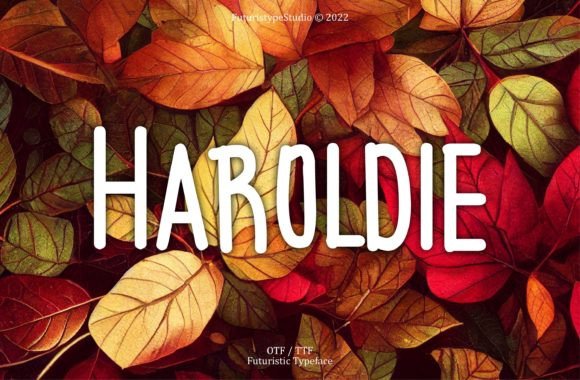
Haroldie Font for Memorable Branding and Display Projects
As a creative consultant who's helped dozens of small businesses elevate their brand presence, I can tell you: the right font doesn’t just look good—it makes your business feel complete. Recently, I was working with a local boutique owner named Maria. She had a beautiful line of handmade jewelry but struggled to make her packaging and social media stand out in a saturated market. That’s when I discovered Haroldie, a cool and trendy-looking display font that could bring her brand personality to life.
Haroldie for Boutique Packaging and Brand Tags
Haroldie is a display font with bold, confident curves and a modern edge that feels both playful and professional. It wasn’t long before I saw its potential for small labels and product tags. Maria used it on her gift boxes and hang tags, and the response from customers was immediate—people started asking if she’d hired a designer.
For boutique owners, especially those in fashion or lifestyle niches, Haroldie adds a sense of exclusivity and creativity. Its unique character helps products stand out on shelves and in online listings. The key here is using it sparingly; while it shines in short bursts like brand names or taglines, overusing it can distract from readability.
How to Use Haroldie on Product Labels Without Overdoing It
- Use it as the headline on product labels or packaging
- Pair it with a clean sans serif font for ingredient lists or descriptions
- Ensure legibility by keeping text size large enough for printed materials
Haroldie in Logo Design and Merchandise Banners
One of the most impactful ways to use Haroldie is in logo design. A few months ago, I worked with a skincare brand that wanted to rebrand their product line. Their previous logo felt generic, and they needed something fresh. After testing several Fonts, Haroldie stood out for its ability to convey a sense of style and modernity without being too flashy.
The logo now features Haroldie in a stylized form, paired with a minimalist layout. This gives the brand a premium feel and makes their products instantly recognizable at a glance. When used in logos, Haroldie works best when it's simplified—removing unnecessary alternates or ligatures can help maintain clarity and professionalism.
On merchandise banners and promotional posters, Haroldie really comes into its own. Its visual appeal catches attention quickly, which is essential for retail environments and digital storefronts where first impressions matter most.
Design Tips for Using Haroldie in Logos and Posters
- Test different weights (if available) to find the boldest version that still looks balanced
- Limit the number of characters in headlines to keep them legible at a distance
- Use high-contrast colors against white or dark backgrounds to highlight the font’s style
Haroldie for Social Media Graphics and Online Shop Templates
With more customers shopping online than ever before, having strong visual assets is critical. I recently helped a bakery refresh their Instagram templates and shop banner designs. They were looking for something that felt modern yet warm—perfect for Haroldie.
In this case, we used Haroldie for call-to-action buttons and hero headlines. The font added a friendly yet stylish touch that matched their branding perfectly. It also scaled well across platforms, from desktop banners to mobile thumbnails, ensuring that their message remained consistent and eye-catching no matter where it appeared.
When using Fonts like Haroldie in social media graphics, always check how it looks at smaller sizes. While it's great for display purposes, some decorative elements might not render clearly on low-resolution screens. I recommend sticking to the core letters and avoiding excessive ligatures unless you’re sure of the platform’s rendering quality.
Why Display Fonts Like Haroldie Work Well in Digital Spaces
- They are designed to be read at a glance rather than for long paragraphs
- They add a sense of energy and intention to your visuals
- They create a cohesive look when used consistently across all marketing channels
Using Haroldie for Menus and Flyer Headlines
I’ve also seen Haroldie work wonders in print-based projects. Take a recent project with a cozy café that wanted to update their menu design. They were tired of the same old typography and craved something more expressive. We tested Haroldie for section headers and specials, and it transformed the whole layout into something far more engaging.
While Haroldie isn't ideal for full paragraphs due to its decorative nature, it excels at drawing attention to specific items or promotions. In menus and flyers, it acts as a visual anchor that helps customers navigate the content quickly and easily. Just make sure to pair it with a highly readable font for body text.
Font Pairing Ideas for Haroldie
- Pair with a clean sans serif font like Montserrat or Lato for a modern contrast
Typography affects everything from how your brand is perceived to how customers interact with your content. With Haroldie, you're investing in a creative font that has already proven itself in real-world applications. It's versatile, stylish, and built for impact—just what your brand needs to stand out in a sea of sameness.